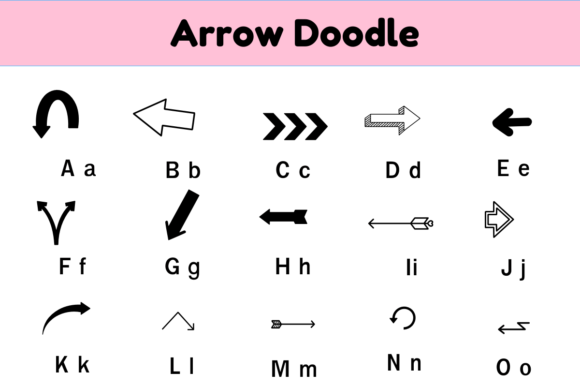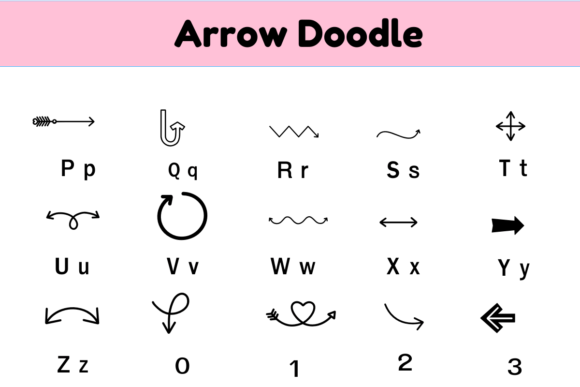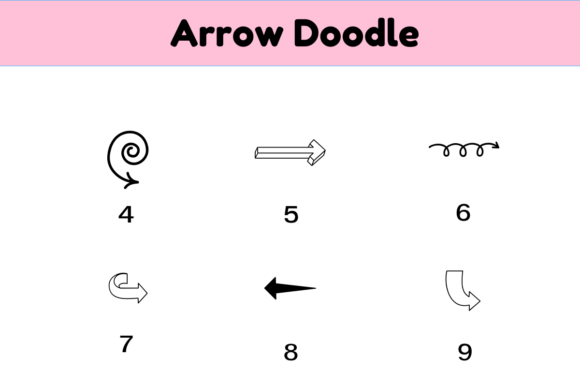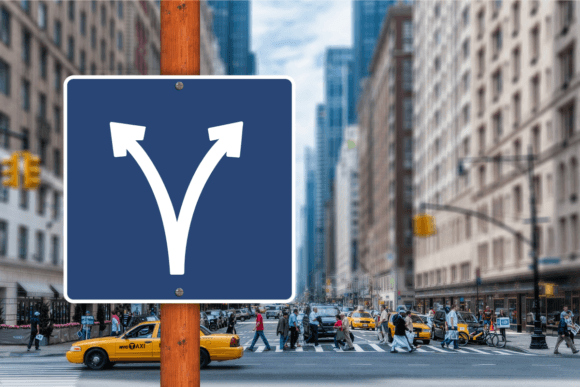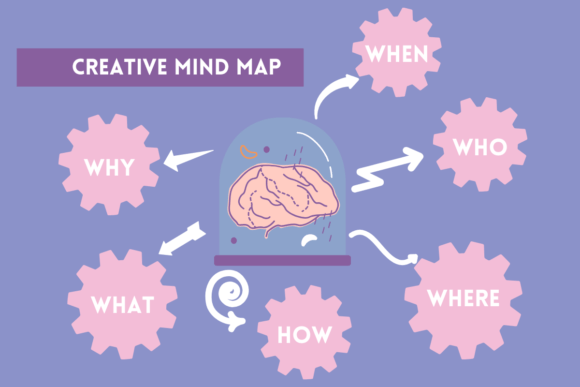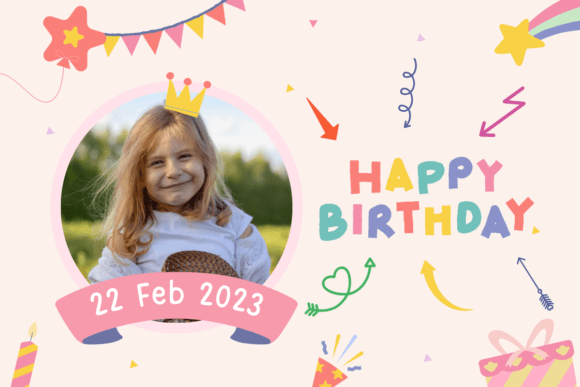
Introducing Arrow Font: The Ultimate Dingbat Font for Creative Projects
Are you a designer, crafter, or DIY enthusiast looking for a unique and versatile font to elevate your creative projects? Look no further than Arrow Font, a dingbat font with a charming sketch style theme. This font is perfect for adding a personal touch to your wedding invitations, DIY crafts, decorations, logos, and many other creative ideas.
What is Arrow Font?
Arrow Font is a dingbat font that features a delightful sketch style theme. Dingbat fonts are a type of font that uses symbols, shapes, and icons instead of traditional letters and numbers. Arrow Font takes this concept to the next level with its intricate and hand-drawn designs, making it perfect for adding a touch of personality to your projects.
Key Features of Arrow Font
- Sketch Style Theme: Arrow Font boasts a charming sketch style theme that adds a touch of whimsy and elegance to your projects.
- Dingbat Characters: The font features a wide range of dingbat characters, including arrows, shapes, and icons, allowing you to add visual interest to your designs.
- Versatile: Arrow Font can be used for a variety of creative projects, from wedding invitations and DIY crafts to logos and decorations.
Creative Ways to Use Arrow Font
Arrow Font is an incredibly versatile font that can be used in a variety of creative ways. Here are some ideas to get you started:
- Wedding Invitations: Add a touch of elegance and whimsy to your wedding invitations with Arrow Font. Use the dingbat characters to create beautiful borders, frames, and designs.
- DIY Crafts: Arrow Font is perfect for DIY crafts, such as scrapbooking, card making, and paper crafting. Use the font to add custom titles, labels, and embellishments to your projects.
- Logos and Branding: Use Arrow Font to create unique and memorable logos and branding materials. The font’s sketch style theme adds a touch of personality and sophistication to your designs.
- Decorations: Arrow Font can be used to create beautiful decorations, such as wall art, garlands, and banners. Use the dingbat characters to add visual interest and texture to your designs.
Tips for Using Arrow Font
Here are some tips for getting the most out of Arrow Font:
- Experiment with Different Sizes: Arrow Font looks great in a variety of sizes, from small and delicate to large and bold. Experiment with different sizes to find the perfect fit for your project.
- Combine with Other Fonts: Arrow Font pairs well with a variety of other fonts, including script fonts, serif fonts, and sans-serif fonts. Experiment with different font combinations to find the perfect look for your project.
- Use as a Accent Font: Arrow Font is perfect for use as an accent font, adding visual interest and texture to your designs. Use it to highlight important information or add a touch of personality to your project.
Arrow Font is a versatile and charming dingbat font that is perfect for designers, crafters, and DIY enthusiasts. With its sketch style theme and wide range of dingbat characters, this font is sure to add a touch of personality and elegance to your creative projects. Whether you’re creating wedding invitations, DIY crafts, logos, or decorations, Arrow Font is the perfect choice.